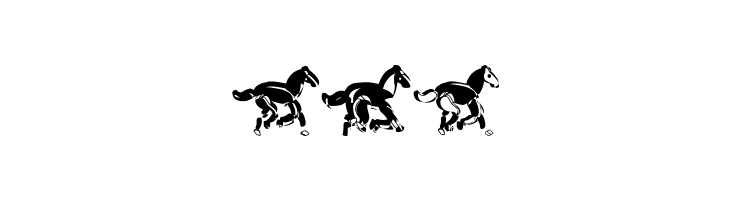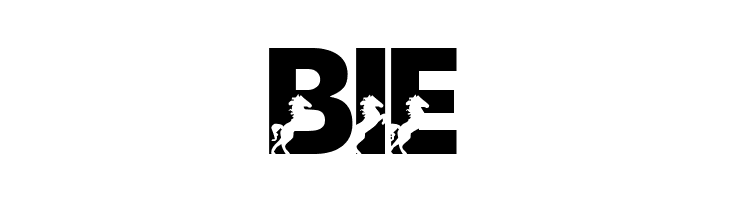
• LMS Mighty Mustang
A bold, decorative font with horse silhouettes integrated into each character.
• Soavaly Regular
A pictorial font featuring running horse illustrations as glyphs.